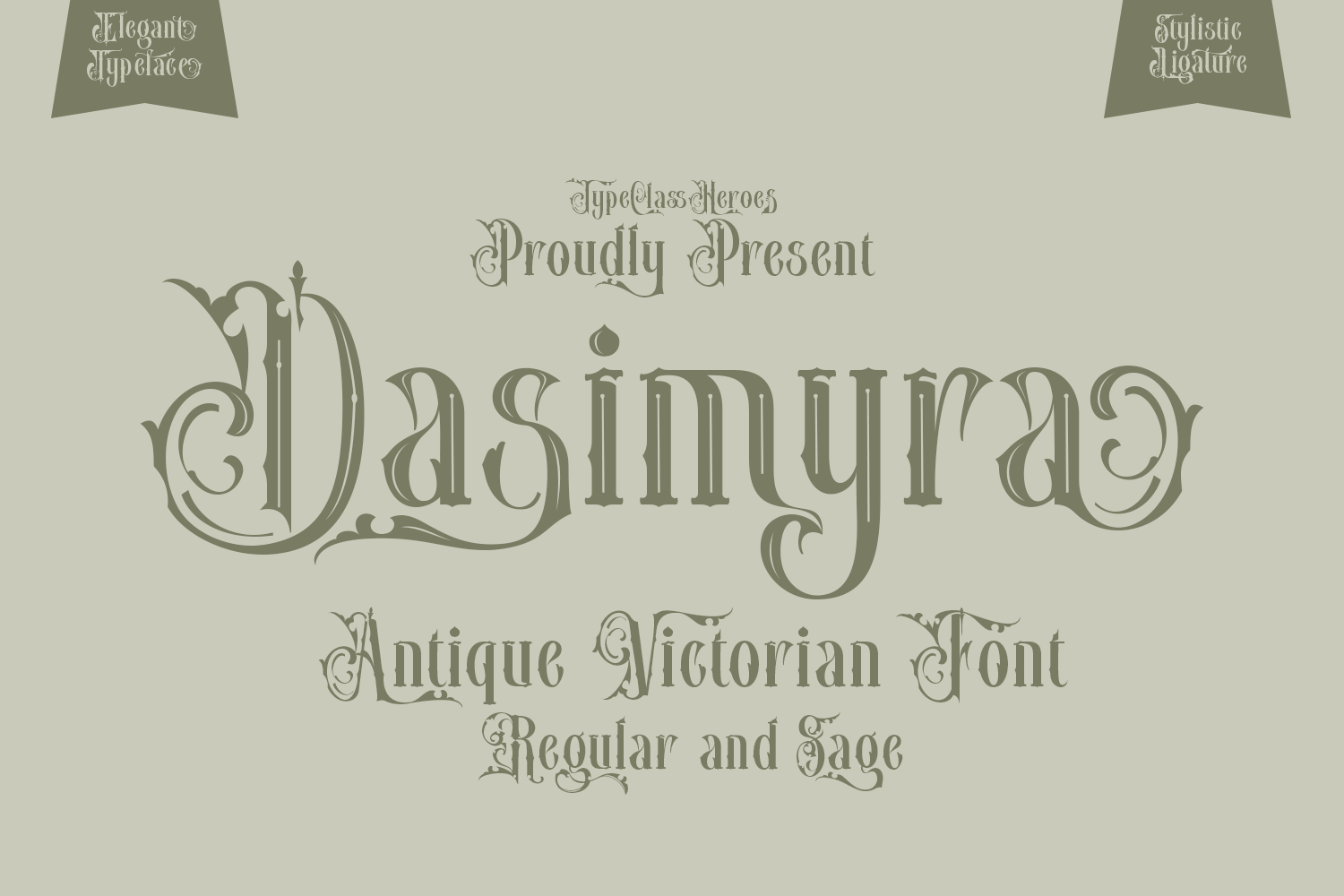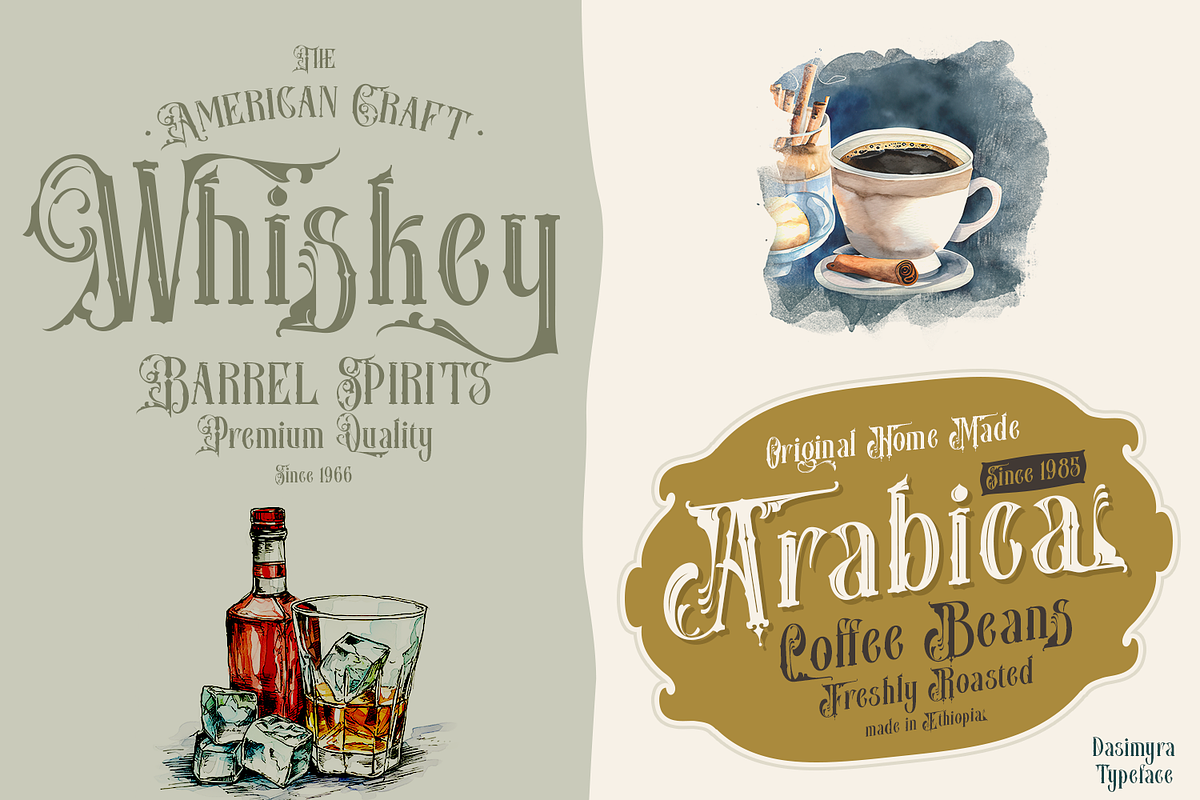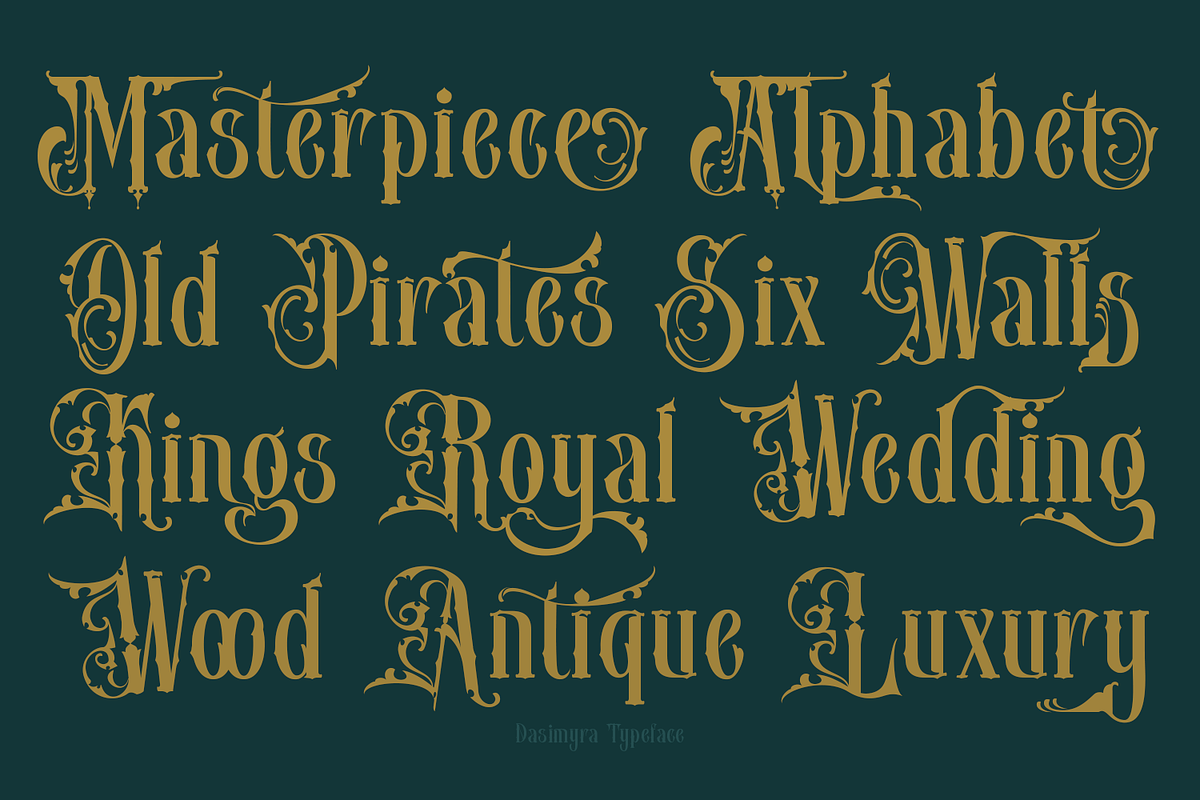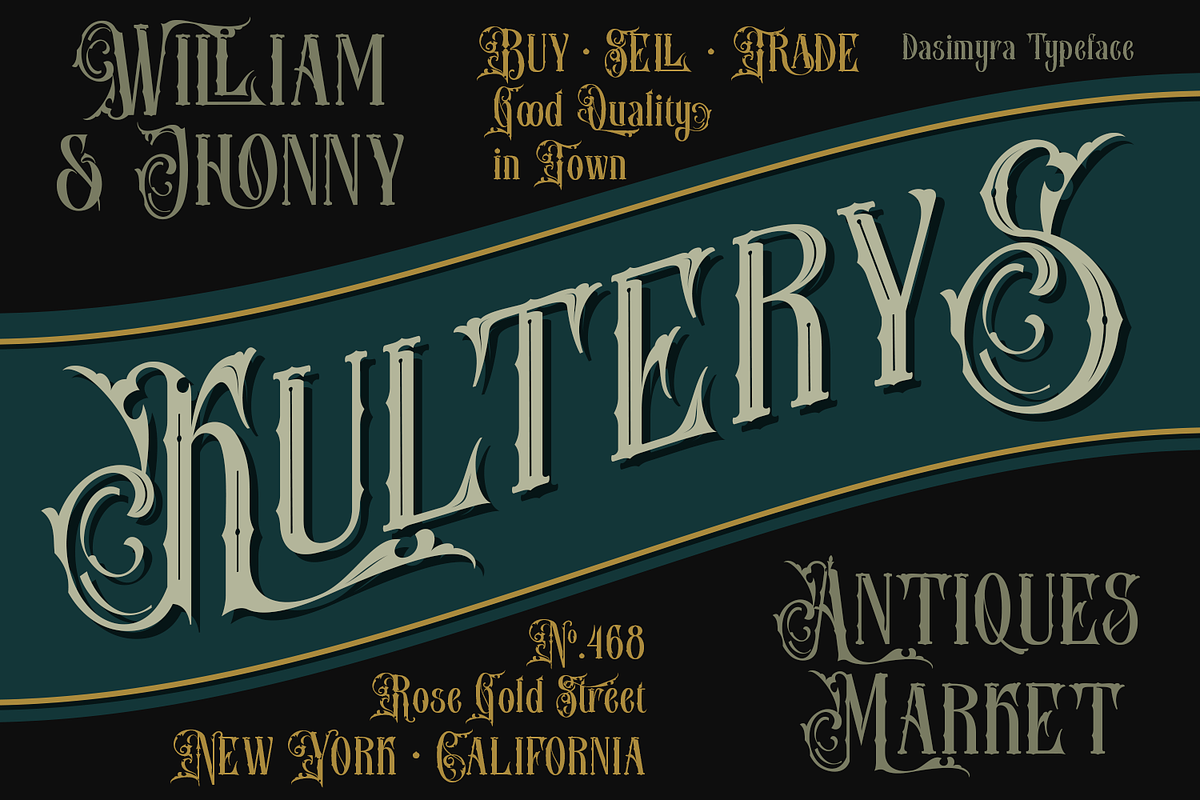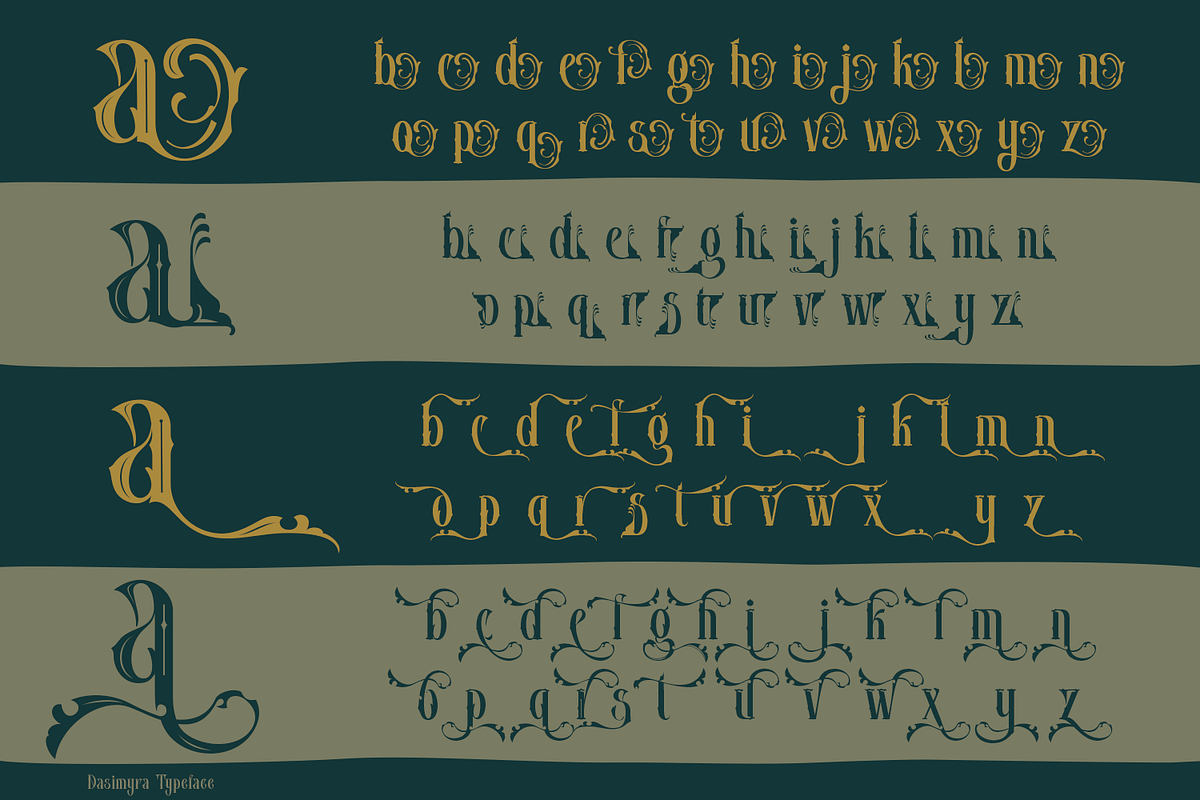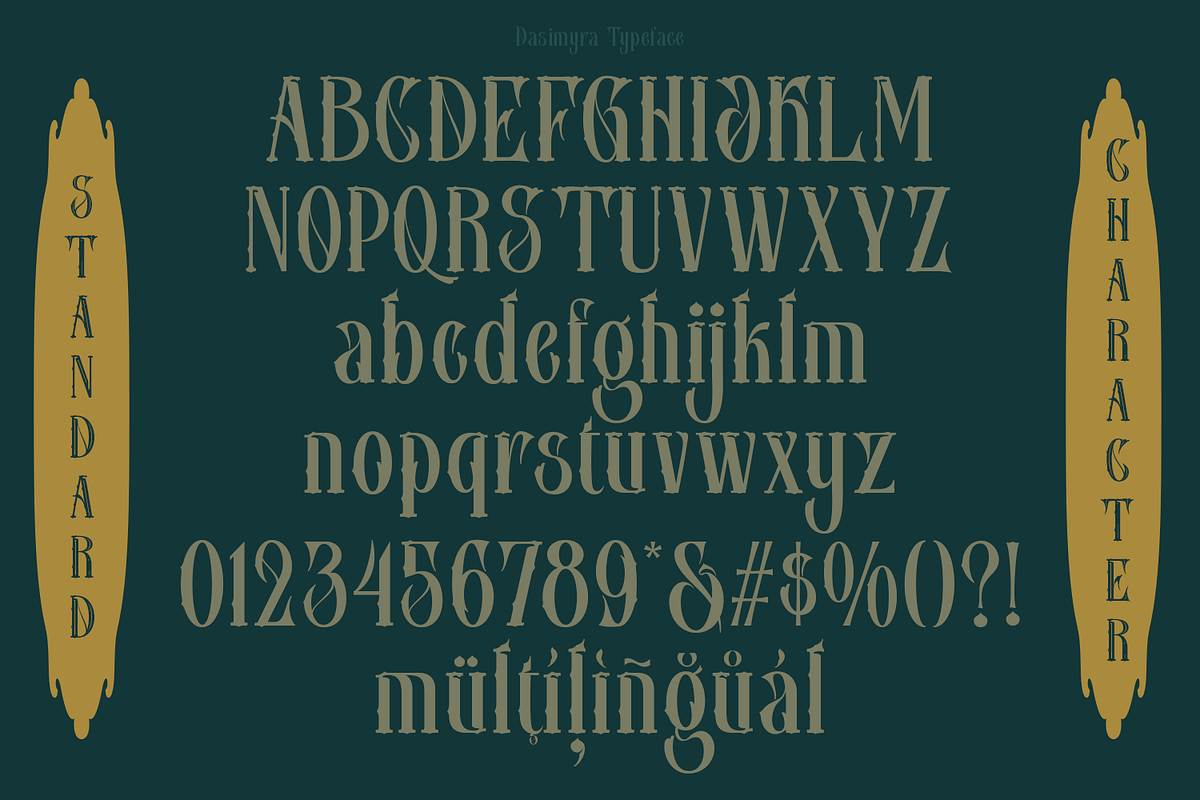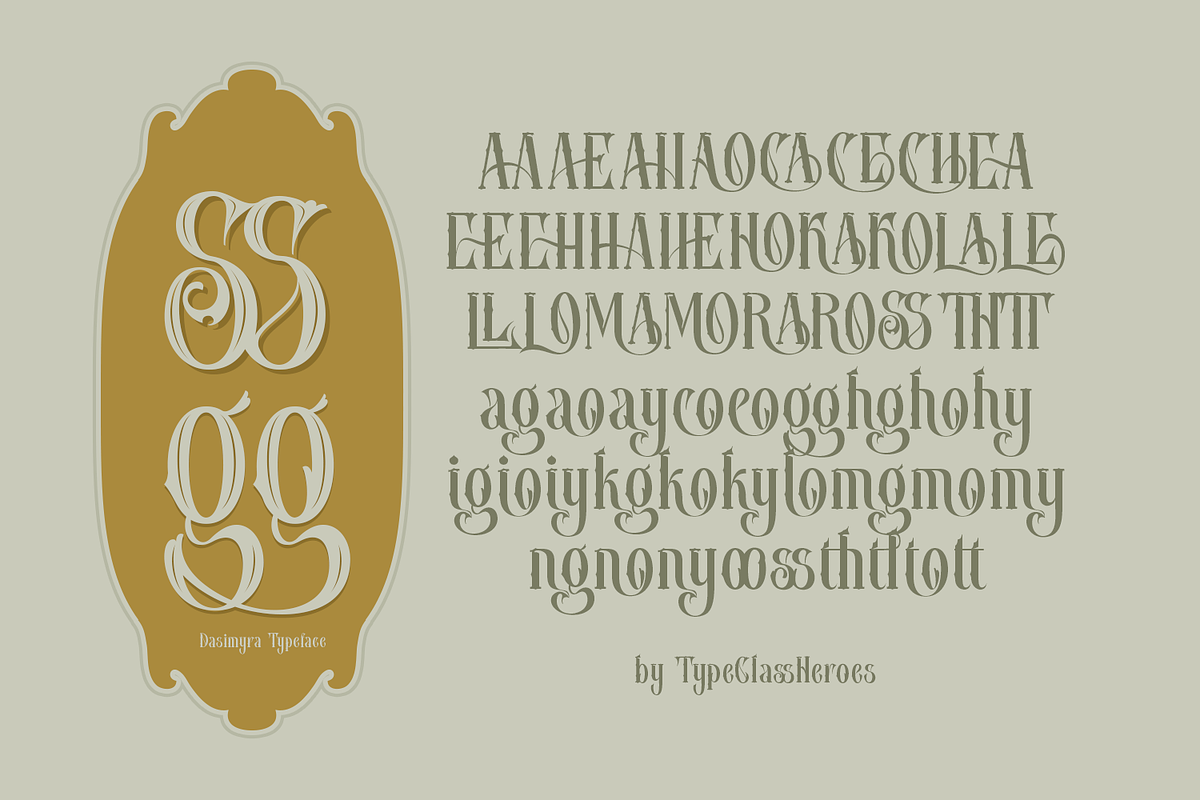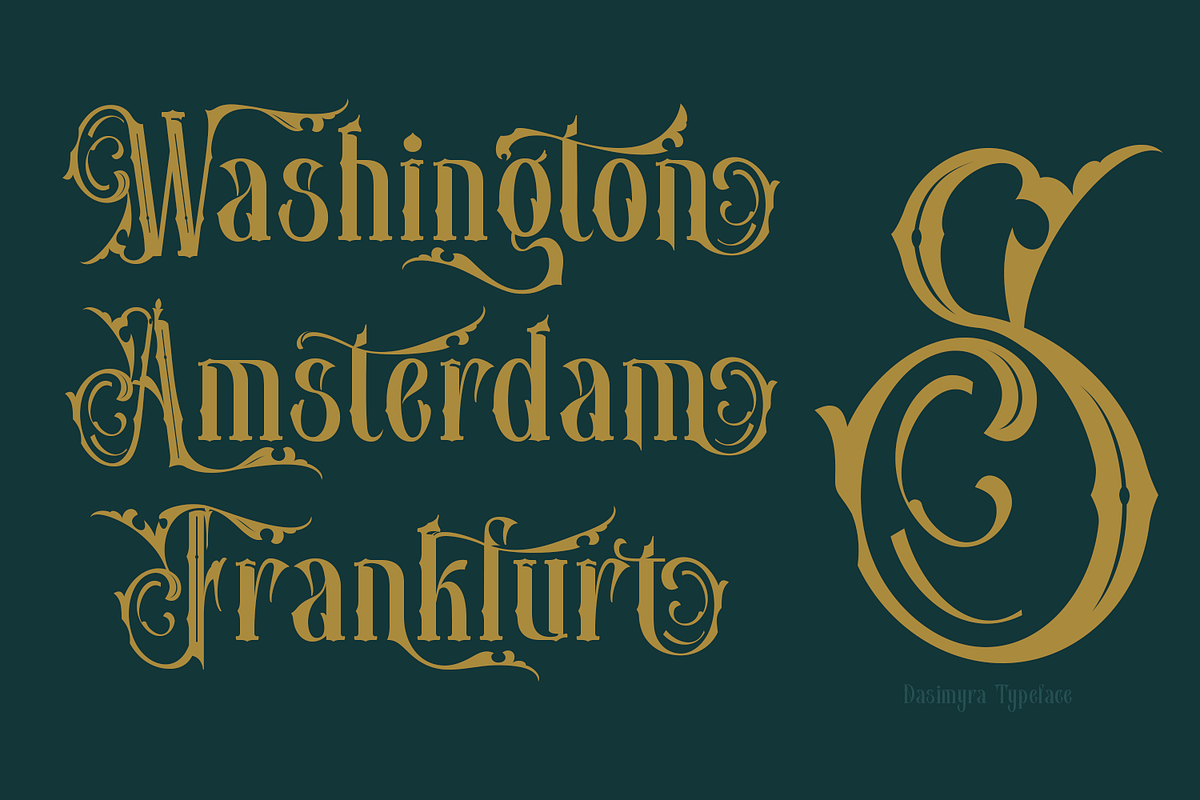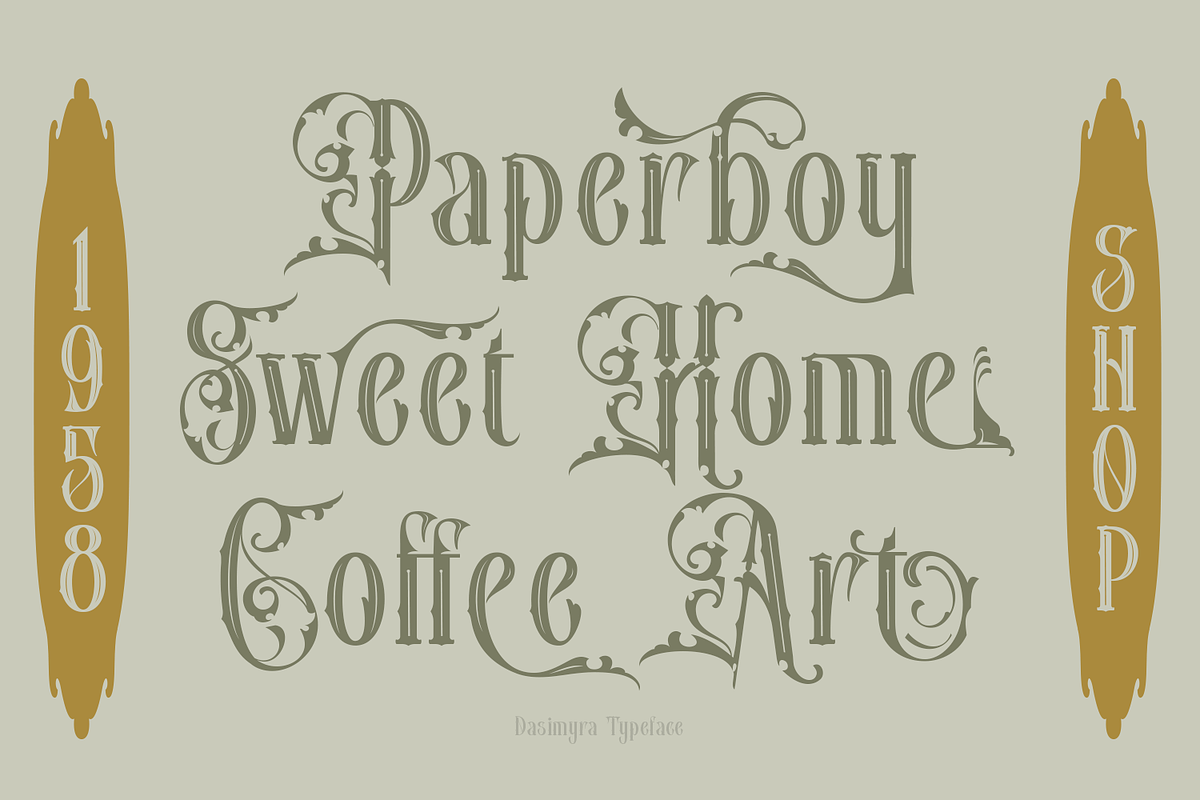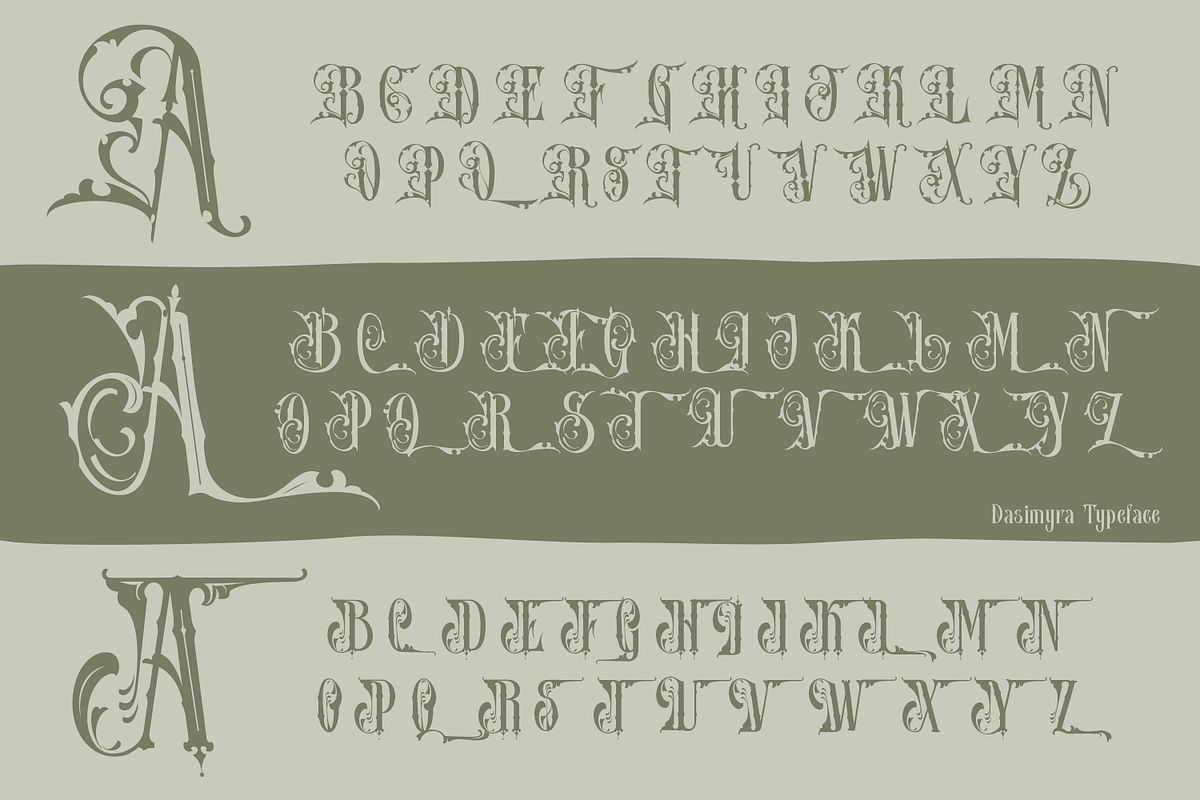
Dasimyra Antique Typeface
Introducing Dasimyra antique Victorian typeface, a classic and ornate font that embodies the majestic elegance of the Victorian era, creating a luxurious and authentic feel. This typeface conveys a timeless sense of luxury and professionalism with its classy character and harmonious visual balance. It is ideal for branding applications that aim to emphasize an exclusive, trustworthy, and authoritative image. Dasimyra enhances any project with its distinctive style and refined aesthetic, making it perfect for upscale branding, invitations, and elegant packaging.
- International Glyphs